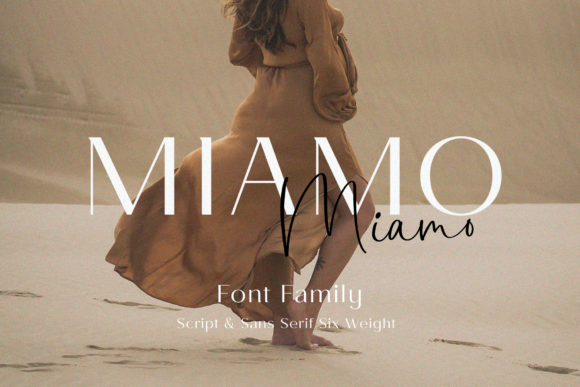
Introducing Miamo, the best font for the title of flyers! This sans serif font family was designed by the talented Pasha Larin and consists of two complementary fonts that are perfect for adding a touch of elegance and playfulness to your designs.
Whether you're creating flyers for a business, party invitations, or simply adding text to your social media graphics, Miamo will elevate your designs and make them stand out from the crowd. The unique and stylish glyphs and swashes available with this font make it easy to create eye-catching titles and headlines that are sure to grab attention.
One of the best features of Miamo is its PUA encoding. This means that accessing all of the available glyphs and swashes is a breeze, allowing you to add flourishes and embellishments to your designs with ease.
Miamo is the perfect choice for anyone who wants to create designs that are both professional and fun. Its versatility and flexibility make it suitable for a wide range of design projects, from business cards to book covers.
Don't settle for boring, generic fonts that don't make your designs stand out. With Miamo, you'll be able to create designs that are as unique and creative as you are. Try it out today and see the difference it can make in your designs!